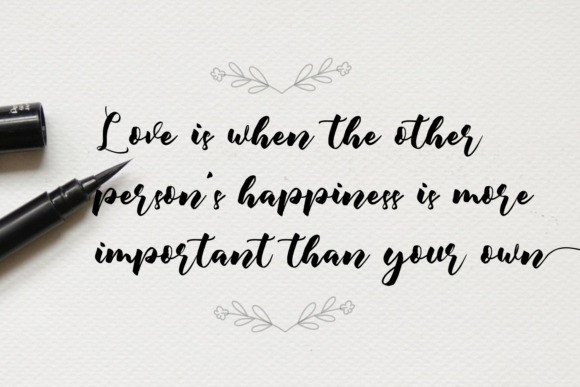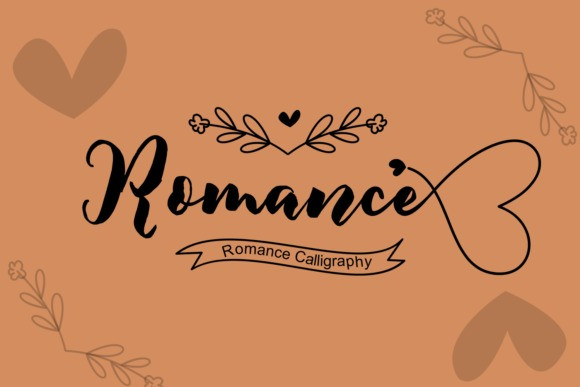
Romance Font
Romance Script Font is a lovely and delicate script font that exudes elegance and class. This font was particularly crafted for those designs who need a beautiful and refreshing look to their designs. Romance is PUA encoded which means you can access all of the glyphs and swashes with ease!